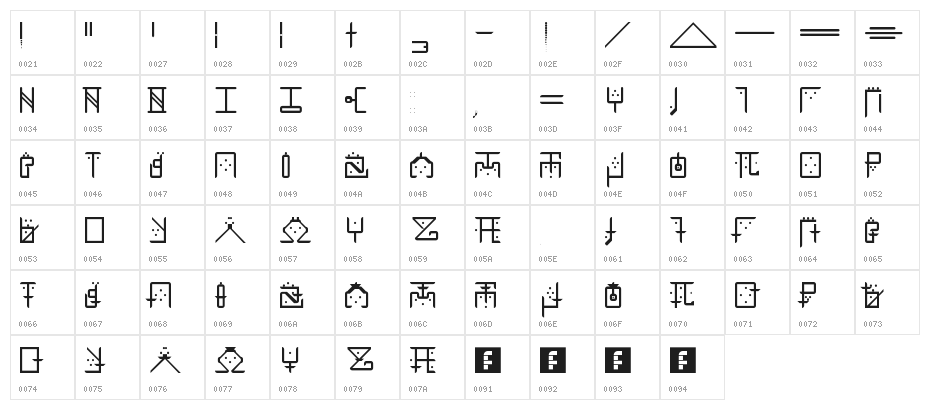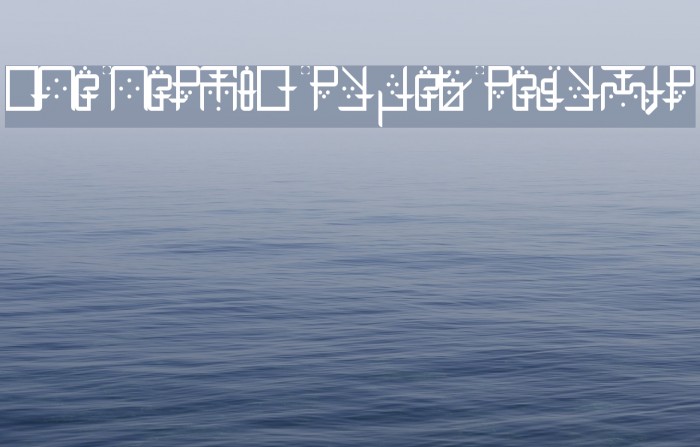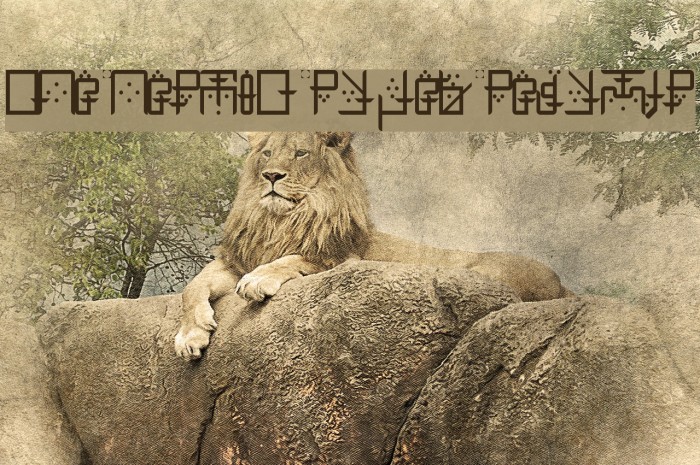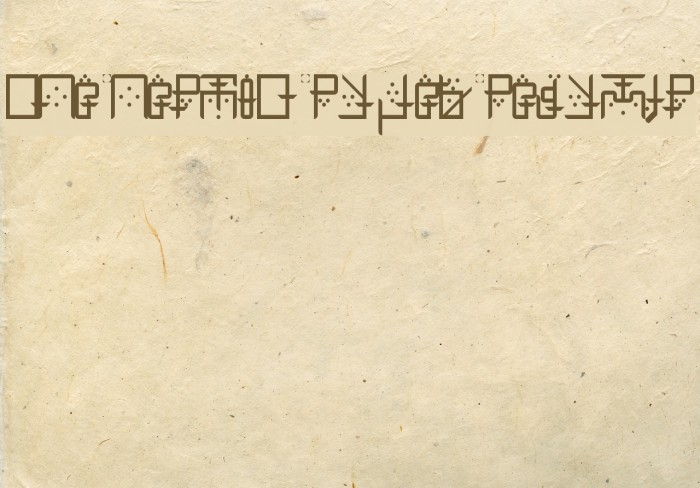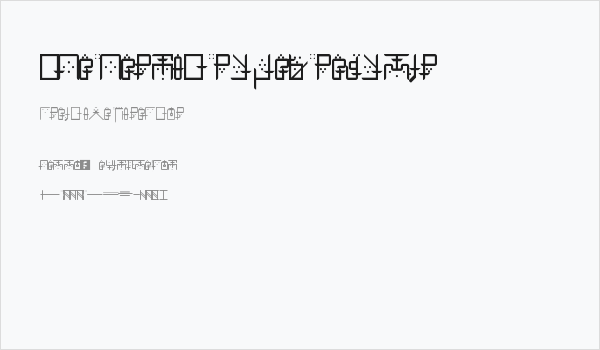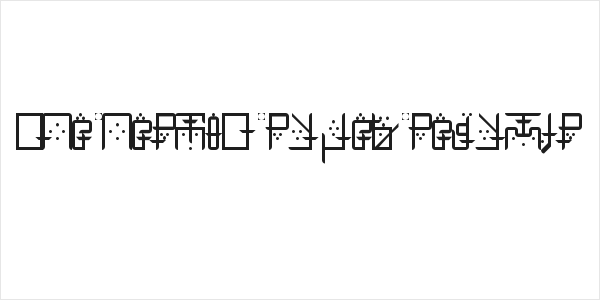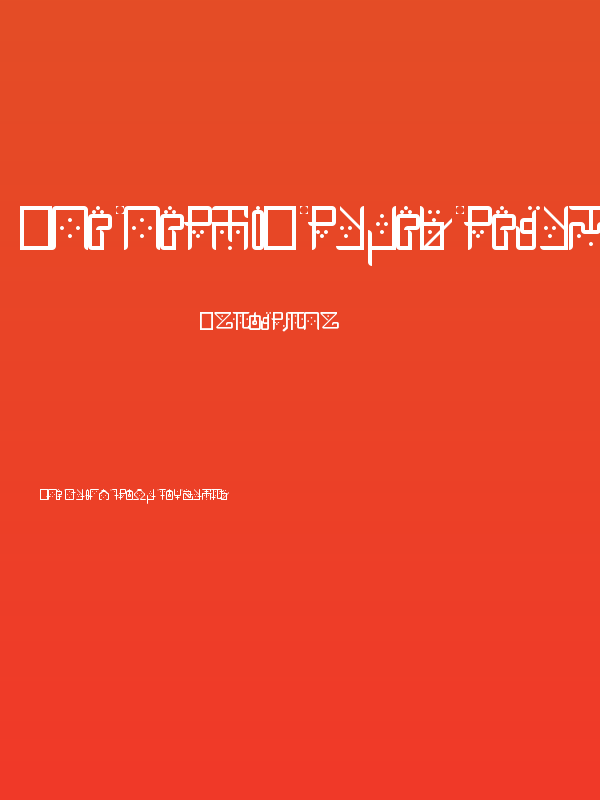
The Hermit Runes Regular Font
The Hermit Runes Regular Description
This font features a highly decorative and abstract design, reminiscent of ancient runes or cryptographic symbols. Each character is composed of geometric shapes, lines, and dots, creating a mysterious and enigmatic appearance. The style is unique and artistic, with a focus on intricate details and a futuristic aesthetic. The characters are distinct and bold, making them stand out in any design. This font is not suitable for body text due to its complexity but can be used effectively for artistic projects or thematic designs that require a touch of mystery and intrigue.
| Proposed Projects | Ideal for fantasy-themed designs, game interfaces, movie posters, or any project requiring a mysterious or ancient aesthetic. |